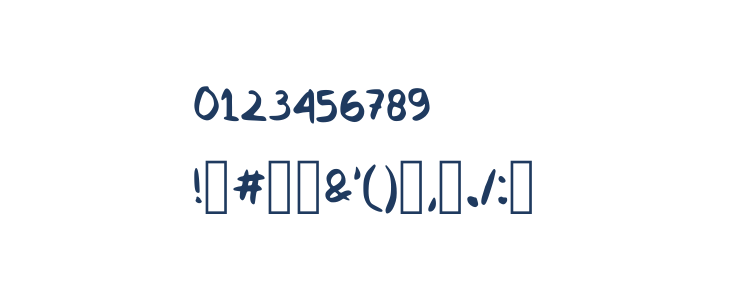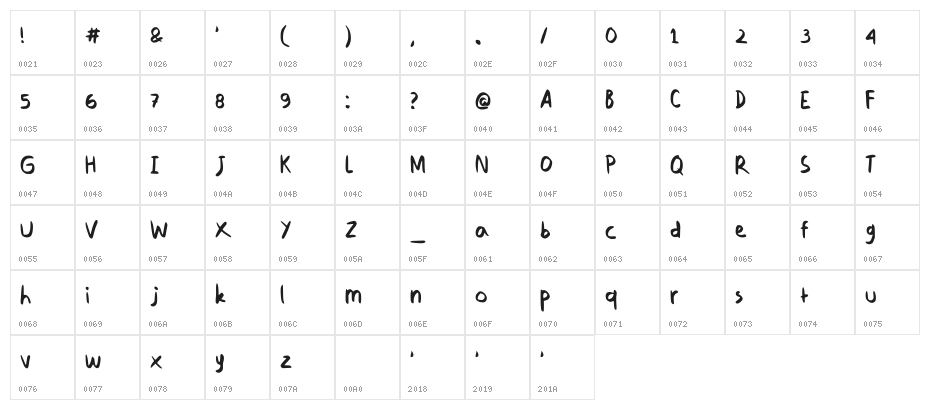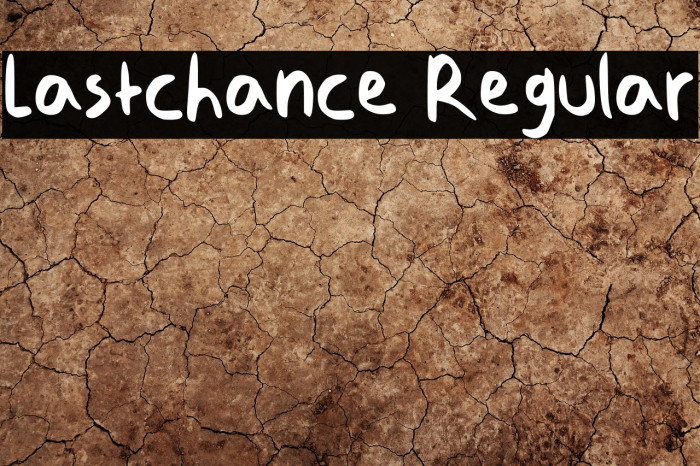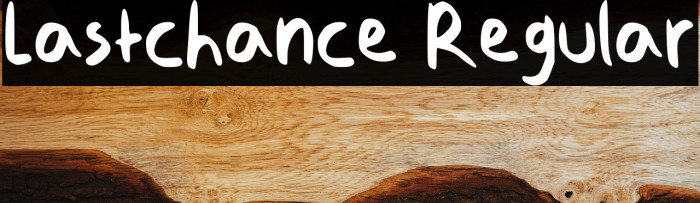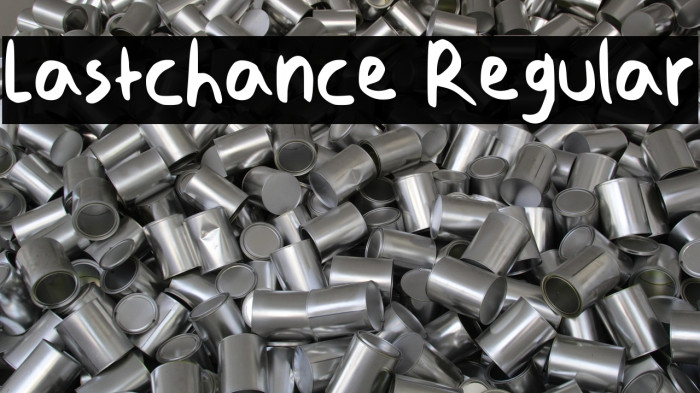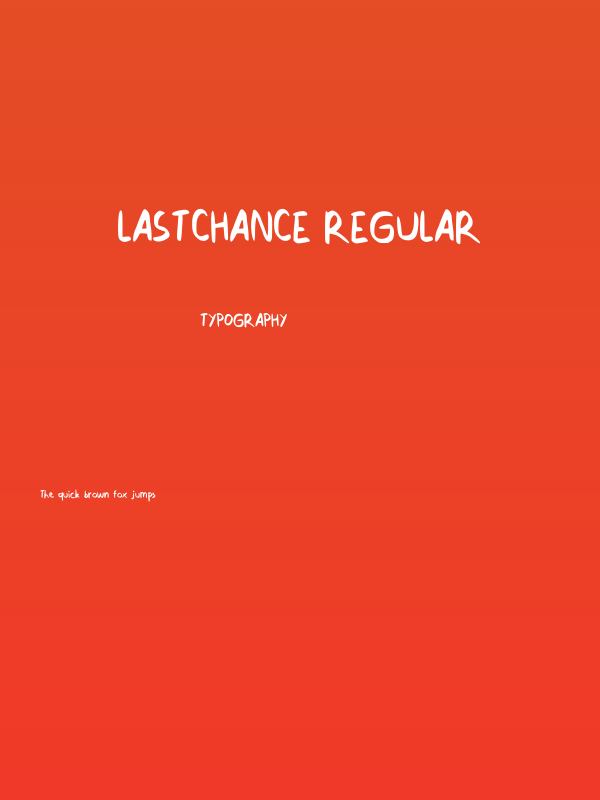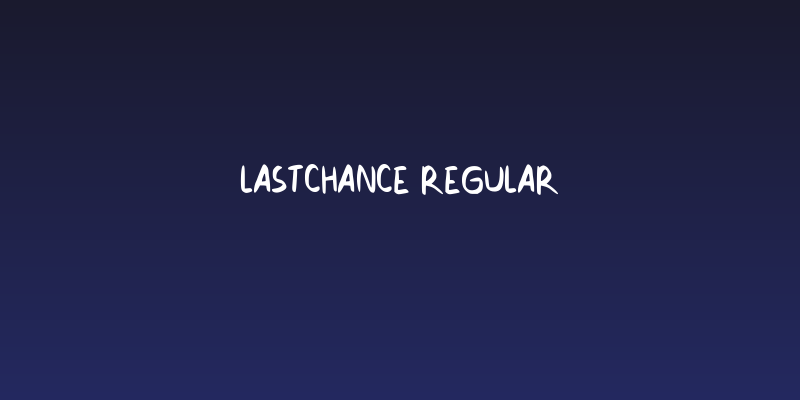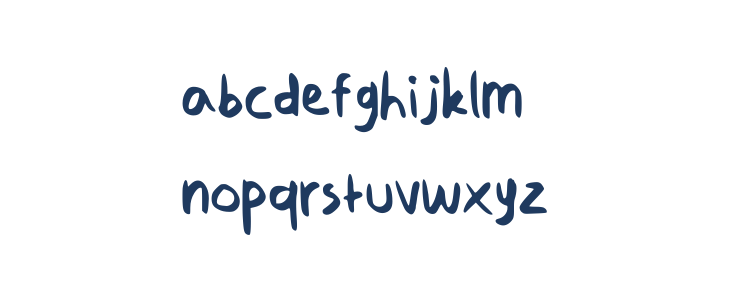
Lastchance Regular Font
Lastchance Regular Description
This font features a playful and casual handwritten style, characterized by its smooth curves and slightly irregular letterforms that give it a personal touch. The uppercase and lowercase letters maintain a consistent flow, while the numerals and special characters complement the overall aesthetic. Its informal appearance makes it suitable for projects that require a friendly and approachable feel. The strokes are moderately thick, providing good readability without sacrificing its whimsical charm.
Overall StyleCasual
Use CaseHeadlines, Informal text, Branding
Proposed ProjectsIdeal for greeting cards, children's books, casual branding, and social media graphics.